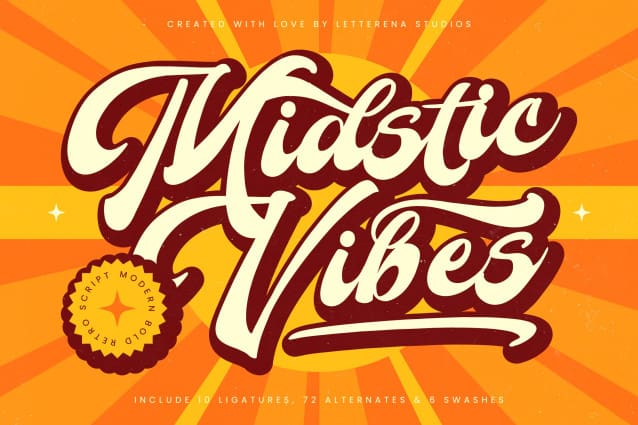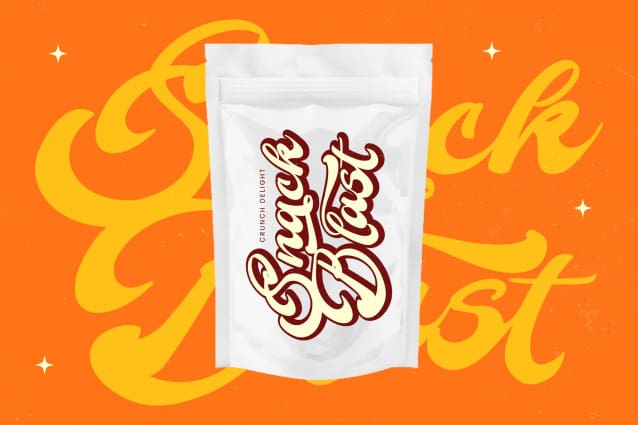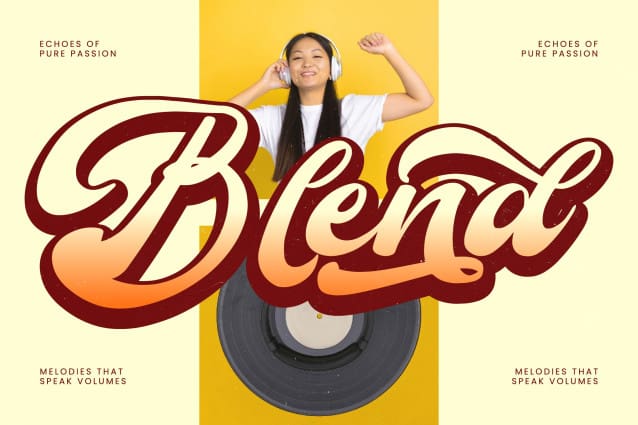
Midstic Vibes Font
Midstic Vibes Font – Modern Bold Retro Script , from Letterena, is a Luxury Script font, suitable for any projects such as: logos, branding projects, homeware designs, product packaging, mugs, quotes, posters, shopping bags, t-shirts, book covers, name card, invitation cards, greeting cards, label, photography, watermark, special events, and all your other luxury and beautiful projects that need a Luxury Script taste.